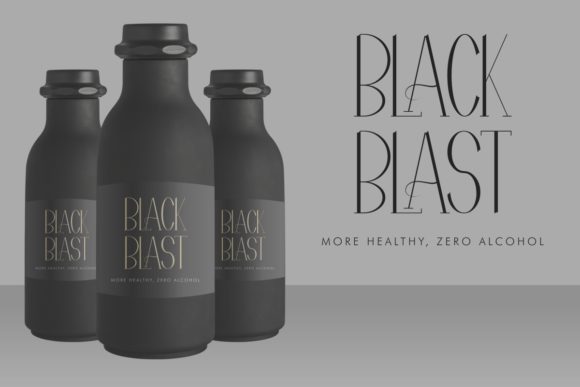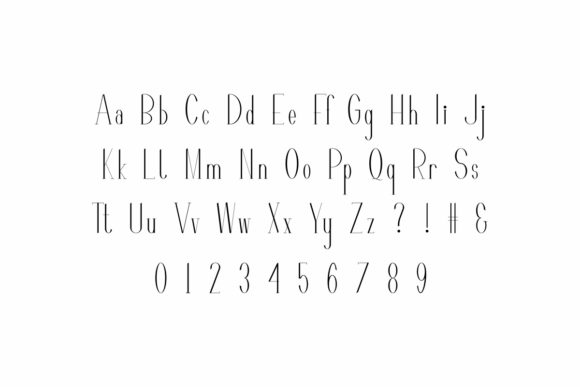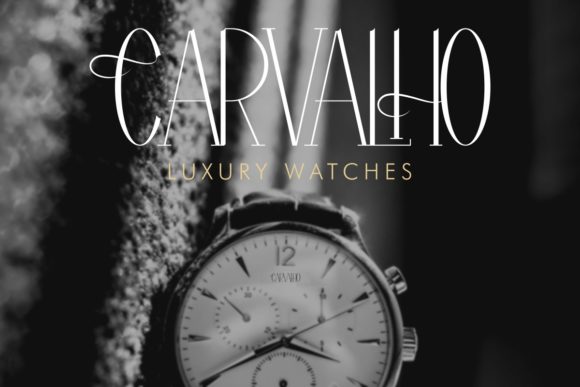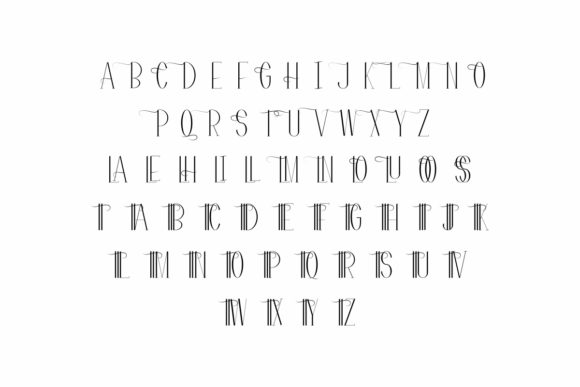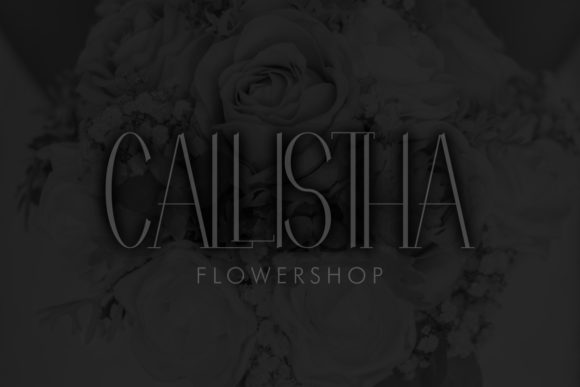
Introducing Flatters Font: Elevate Your Designs with Elegance
Are you looking for a font that exudes sophistication and elegance? Look no further than Flatters Font, a stunning serif font that is sure to elevate your designs to new heights. With its tall and refined lettering, Flatters is the perfect choice for designers and crafters who want to add a touch of authenticity to their work.
The Characteristics of Flatters Font
Flatters Font is a beautifully crafted serif font that boasts a range of impressive features. Its tall and elegant lettering makes it perfect for use in a variety of design projects, from luxury branding and advertising to packaging and editorial design. The font’s classic serif style gives it a timeless feel that will never go out of fashion.
One of the standout features of Flatters Font is its PUA (Private Use Area) encoding. This means that you can access all of the font’s glyphs and swashes with ease, giving you greater flexibility and creative control over your designs. With PUA encoding, you can easily insert special characters, ligatures, and other decorative elements into your text, allowing you to create truly unique and eye-catching designs.
Why Choose Flatters Font?
So why should you choose Flatters Font for your next design project? Here are just a few reasons why this font stands out from the crowd:
- Elegance and sophistication: Flatters Font is the epitome of elegance and sophistication, making it perfect for designs that require a touch of luxury and refinement.
- Versatility: With its classic serif style and PUA encoding, Flatters Font can be used in a wide range of design projects, from traditional print design to digital applications.
- Unique and creative: With its range of glyphs and swashes, Flatters Font gives you the creative freedom to produce truly unique and eye-catching designs that will stand out from the crowd.
Design Ideas with Flatters Font
So what can you create with Flatters Font? The possibilities are endless! Here are a few design ideas to get you started:
- Luxury branding: Use Flatters Font to create a luxurious and sophisticated brand identity that will elevate your business to new heights.
- Wedding and event design: Flatters Font is perfect for creating beautiful wedding invitations, programs, and other event materials that require a touch of elegance and refinement.
- Packaging design: Add a touch of luxury to your product packaging with Flatters Font, which is perfect for creating high-end labels, tags, and other packaging materials.
- Editorial design: Use Flatters Font to create stunning editorial designs, such as magazine covers, articles, and advertisements that require a touch of sophistication and elegance.
In conclusion, Flatters Font is a stunning serif font that is sure to elevate your designs to new heights. With its elegant and sophisticated lettering, PUA encoding, and versatility, Flatters Font is the perfect choice for designers and crafters who want to add a touch of authenticity to their work. Whether you’re creating luxury branding, wedding and event design, packaging design, or editorial design, Flatters Font is the perfect choice. So why wait? Download Flatters Font today and start creating stunning designs that will leave a lasting impression!